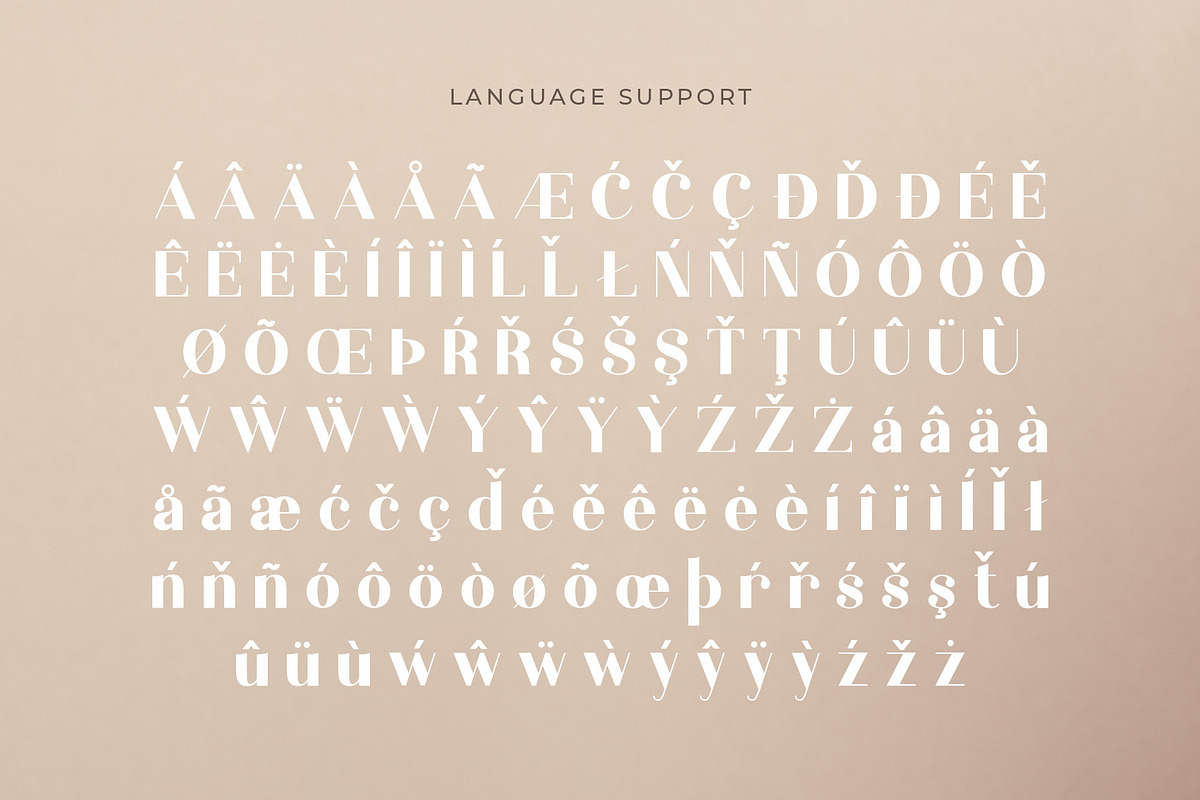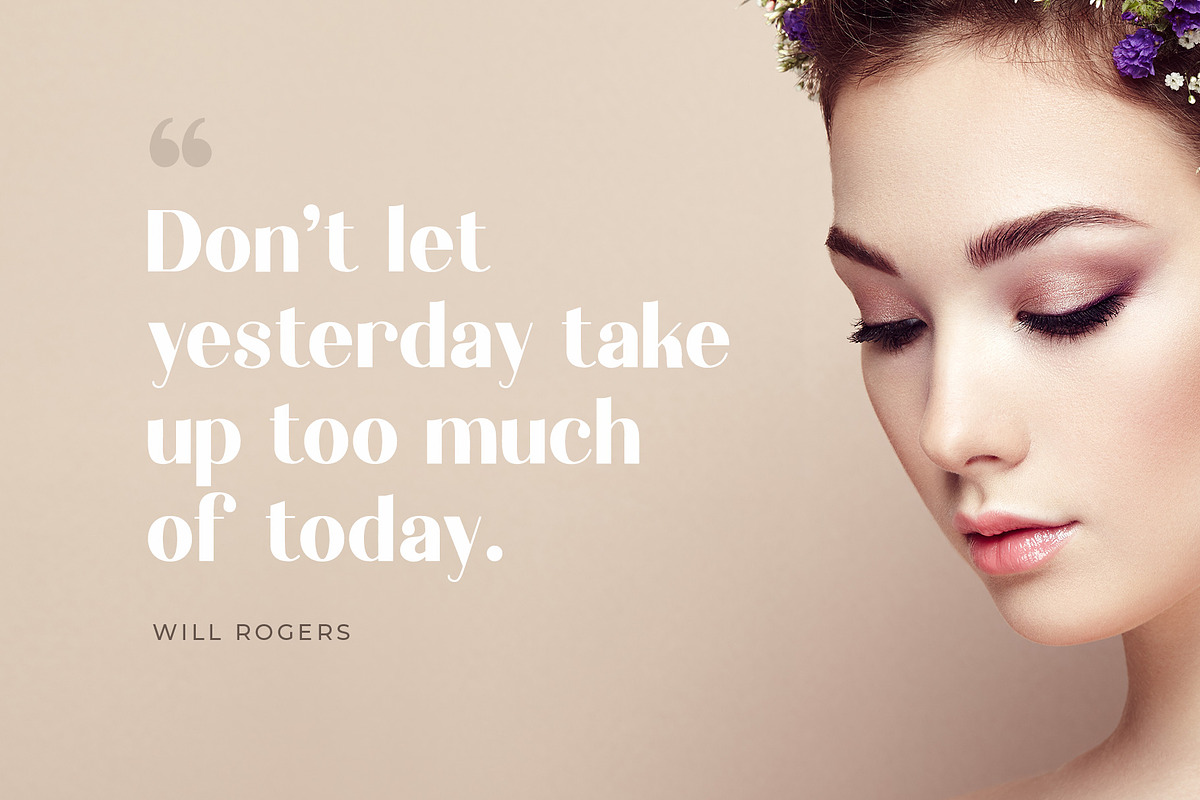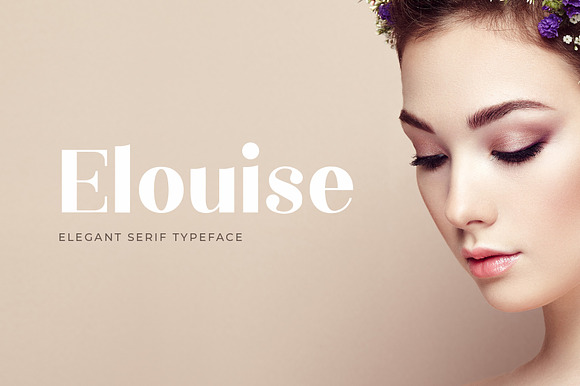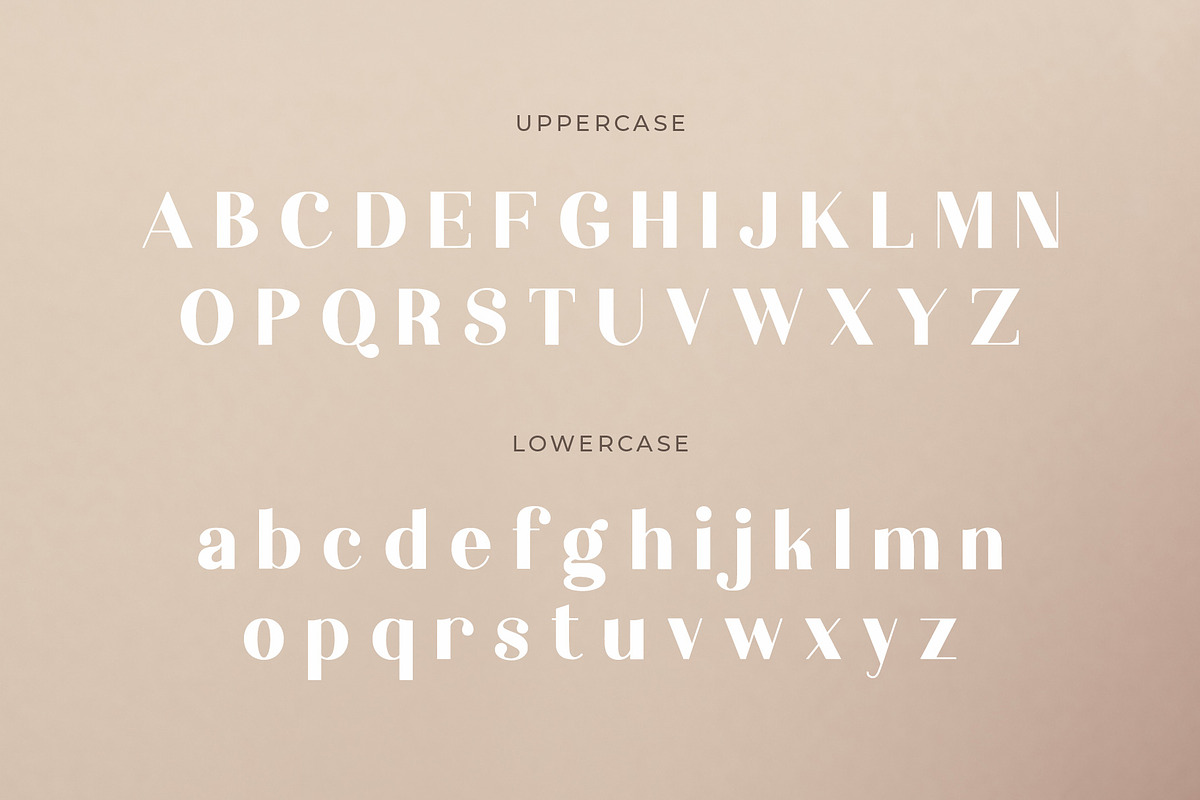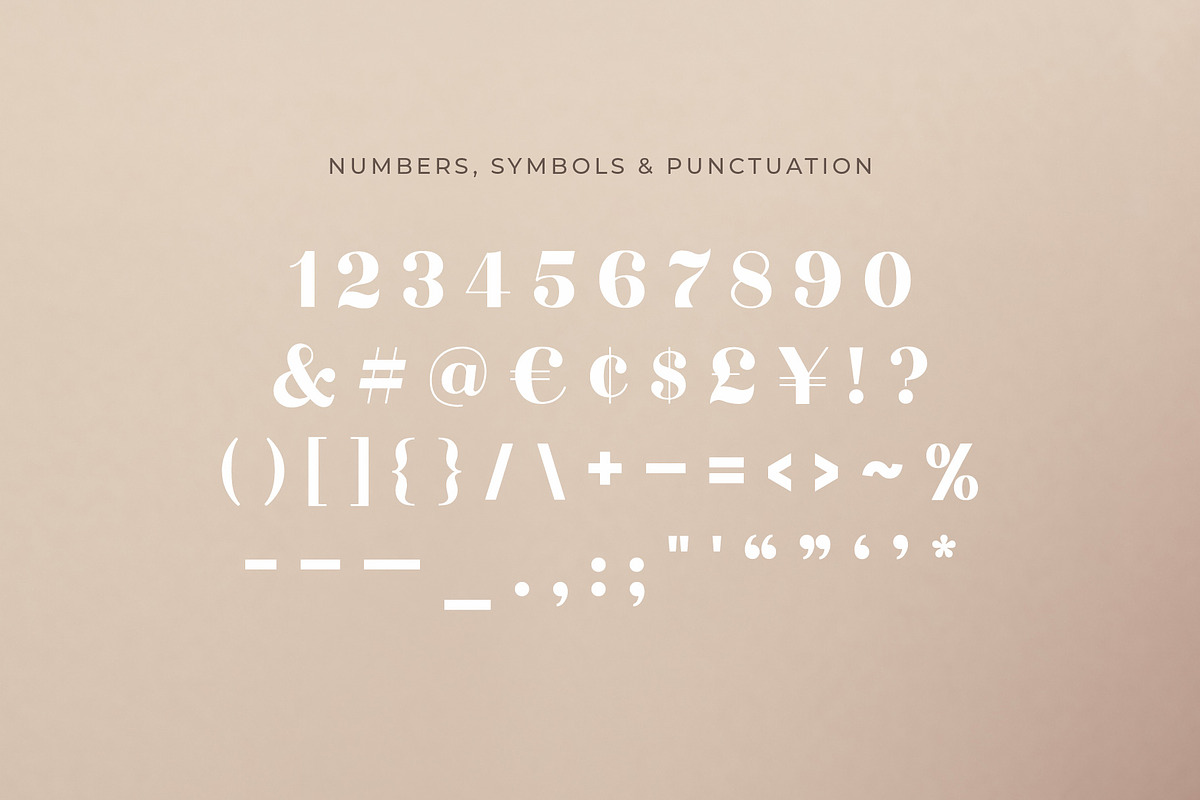
Elouise - Elegant Serif Font
Elouise is our new elegant serif typeface, designed for both simplicity and style. This font is ideal for headlines and body copy, it features characterful letterforms with subtle serifs and embellishments. The stroke width ranges from bold to ultra thin, giving a strong contrast and distinct style to the characters.
All uppercase letters A-Z
All lowercase letters a-z
Most common punctuation
European language support